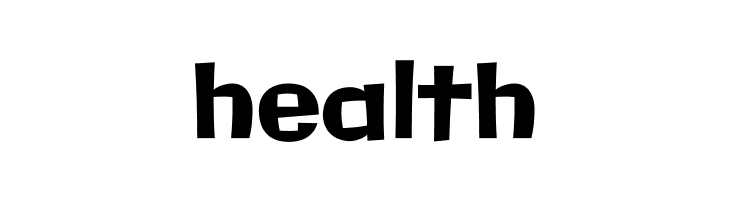
A textured, distressed font with a crumbly, dynamic appearance.
A bold, spiky font with a crumbly texture and swollen appearance.
A highly condensed, clean, and organized font ideal for space-saving designs.
A modern, ultra-expanded font with a geometric and clean design.
A highly condensed and elegant font with tall, narrow letterforms and minimal contrast.
A bold, wide font with a modern and impactful design.
A playful, dotted font with geometric consistency and a dynamic appearance.
A modern, geometric sans-serif font with balanced spacing and clear characters.
A modern, geometric typeface with uniform stroke width and clean lines.
A bold, brush-style font with high contrast and dynamic strokes.
A bold, hand-drawn font with an edgy, dynamic style.
Expressive illustrated faces form each character in a bold, decorative style.
A segmented, digital-style font with a modern, technical appearance.
A bold, geometric font with a futuristic, grid-like design.
A bold slab serif font with strong, block-like serifs and high contrast.
A bold, slab serif font with a vintage yet modern appeal.
A medieval-inspired font with sharp angles and smooth curves, exuding classic elegance.
A classic, medieval-style font with rounded characters and pointed serifs.
A bold, modern font with a unique horizontal line pattern for a dynamic look.
A playful, dotted font with a retro pop culture vibe.
A playful, outlined font with a retro Y2K vibe and whimsical embellishments.
A lively, cursive script font with smooth, connected strokes.
A vintage cursive font with elegant, flowing characters.
A vintage, cursive script font with a bold, flowing style.